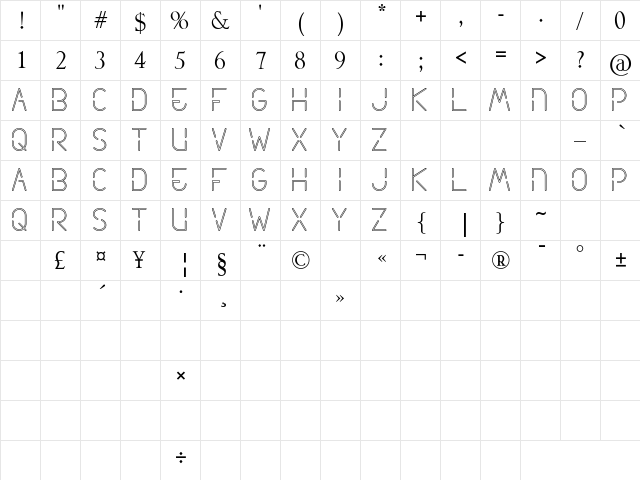
Neon Future Regular Font Preview
Neon Future Regular
Design Context for Neon Future Typeface
Neon Future has a distinctly futuristic character, with geometric precision and clean angles that feel at home in technology, gaming, and sci-fi contexts.